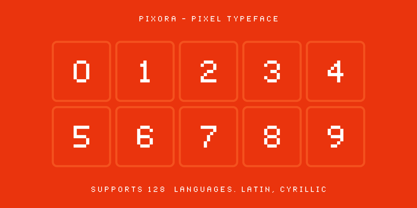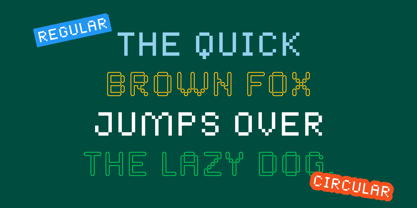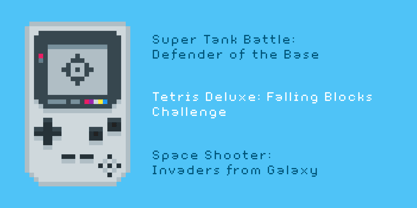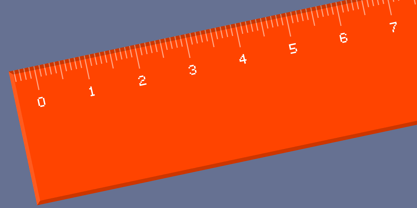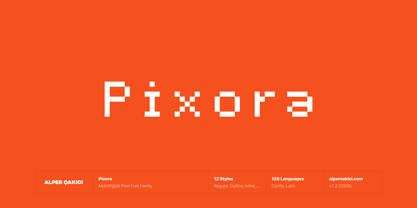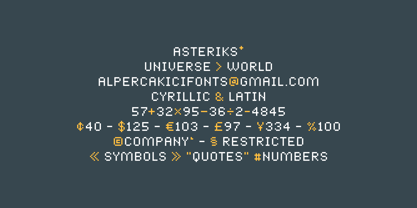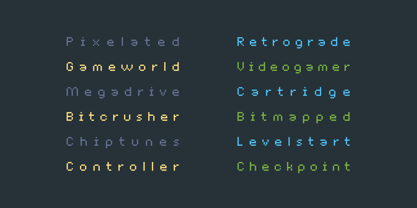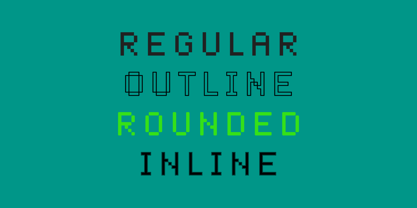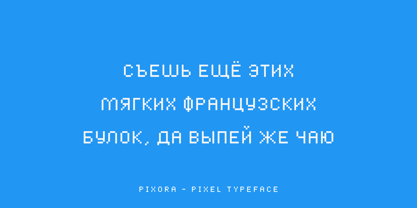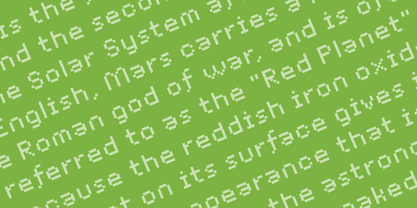
Pixora
by AlperCakici
The Pixora Font Family was designed by Alper Çakıcı and published by AlperCakici. Pixora contains 12 styles and family package options. More about this family
Pixora is a versatile pixel typeface that blends nostalgic bitmap charm with refined contemporary design. Built on a precise grid system, Pixora captures the spirit of classic arcade and early digital interfaces while maintaining clarity, balance, and modern usability. Designed for display use, Pixora delivers crisp edges, strong rhythm, and excellent legibility at both small and large sizes. Its carefully constructed letterforms ensure consistency across languages, making it a reliable choice for multilingual branding, gaming projects, UI design, posters, packaging, and digital experiences. Styles & Instances Pixora comes in a rich set of styles to expand creative flexibility: Pixora Regular Pixora Inline Pixora Outline Pixora Shadow Pixora Circular Inline Pixora Circular Outline Pixora Circular Shadow Pixora Rounded Inline Pixora Rounded Outline Pixora Rounded Shadow From sharp and structured to soft and rounded, Pixora adapts easily to playful, futuristic, retro, and tech-driven aesthetics. The Inline, Outline, and Shadow styles add depth and layering possibilities, while Circular and Rounded variants introduce a smoother, friendlier tone without losing pixel precision. Key Features Authentic pixel construction Extensive language support (128 languages) Clean spacing and kerning Perfect for logos, games, apps, posters, and branding Multiple stylistic families for maximum versatility Pixora is where retro pixels meet modern design control — a complete pixel system built for today’s creators.